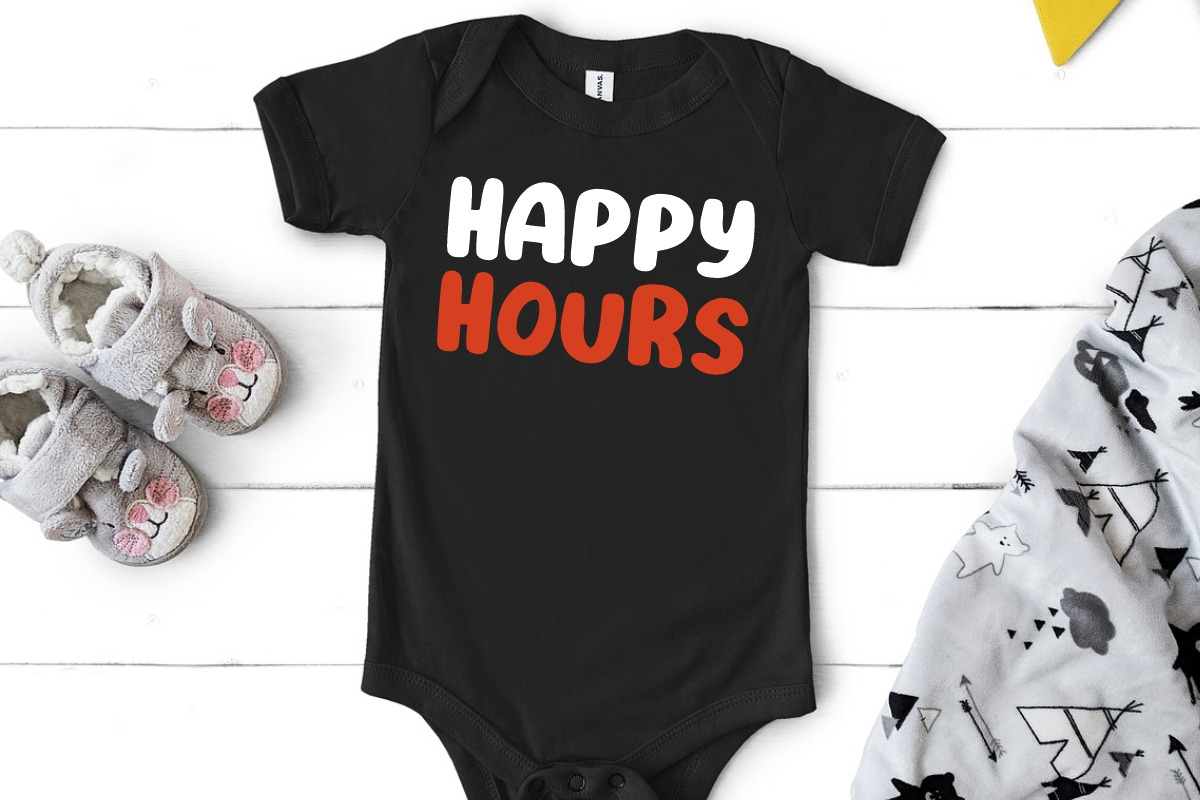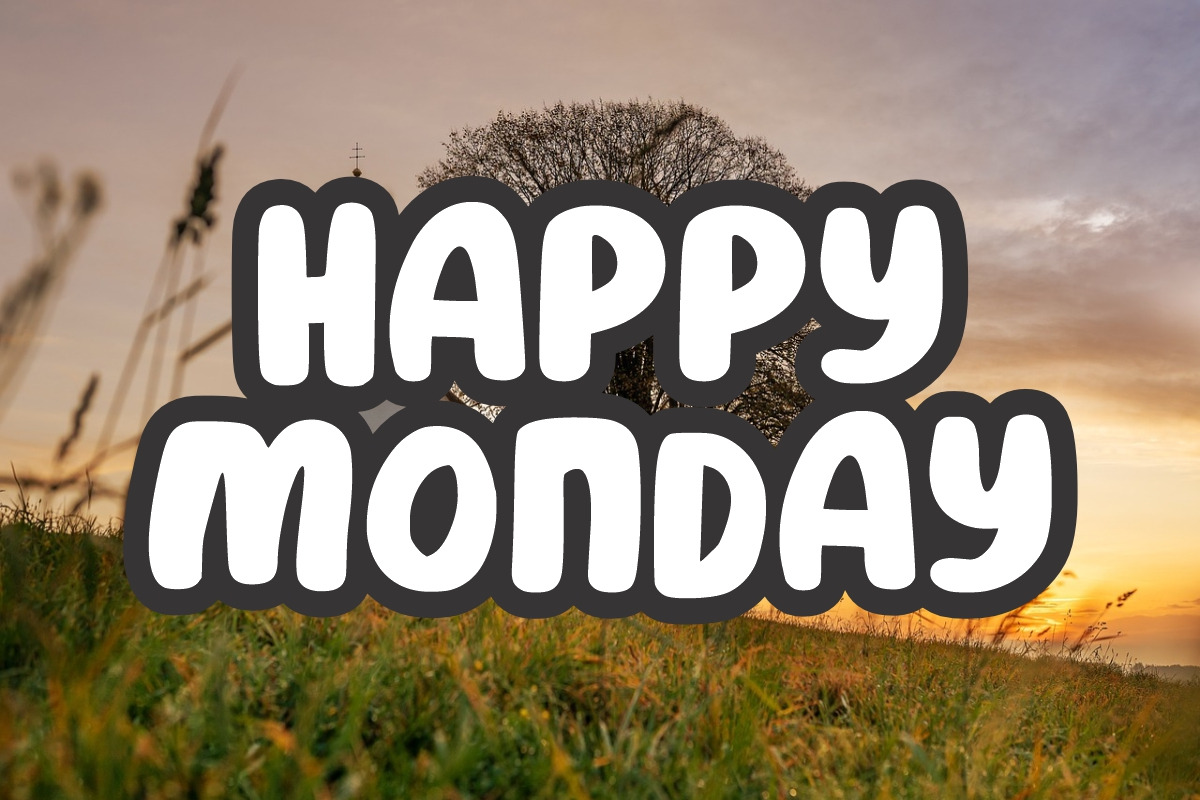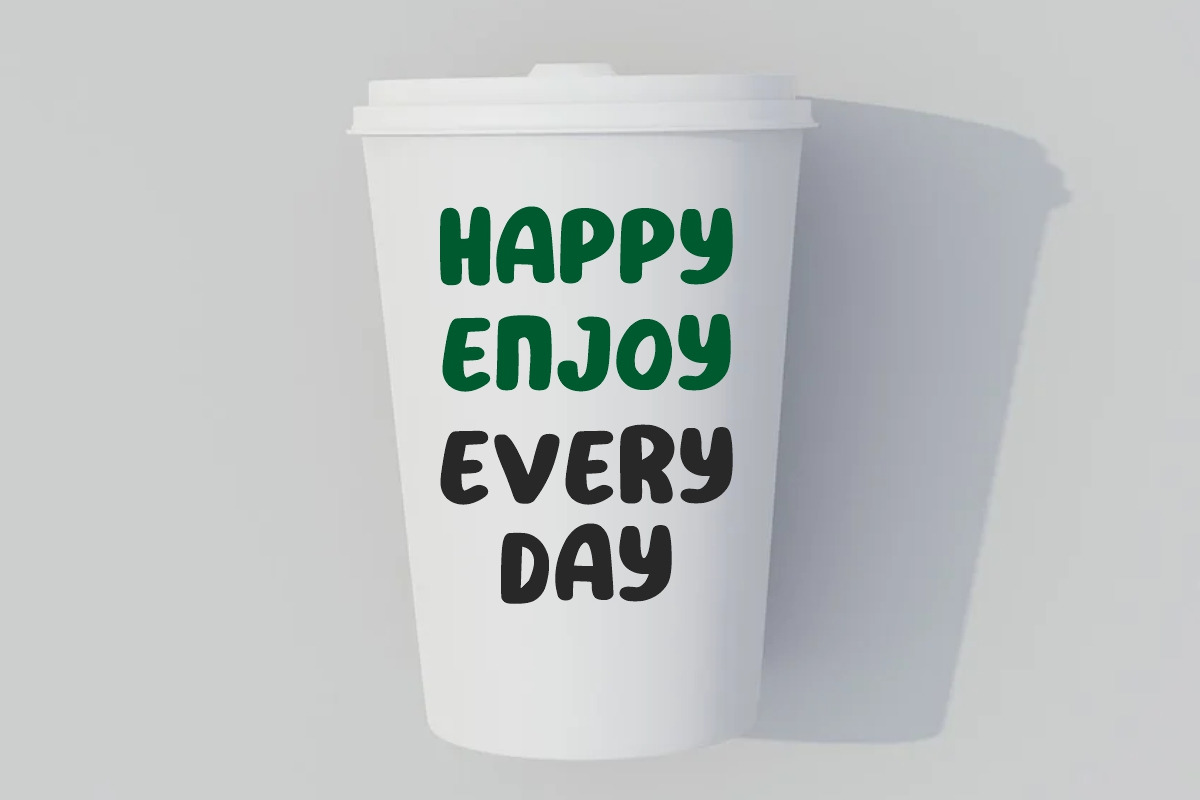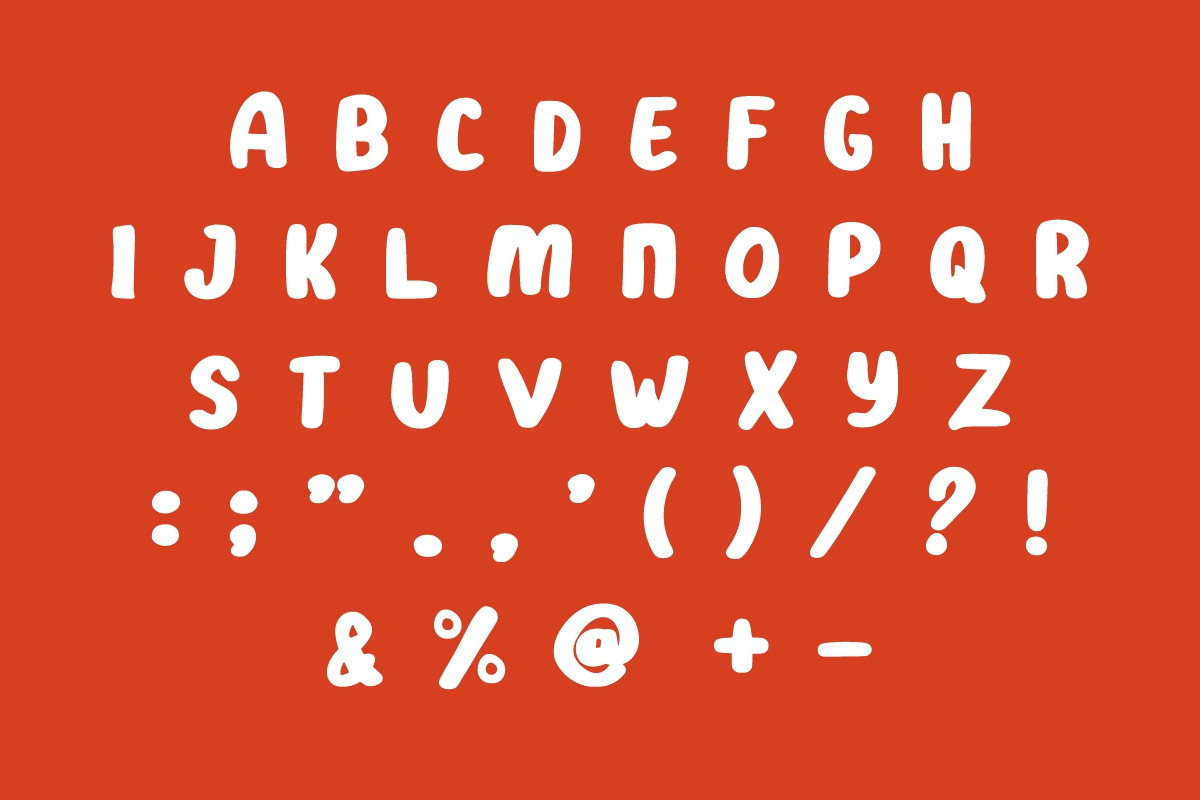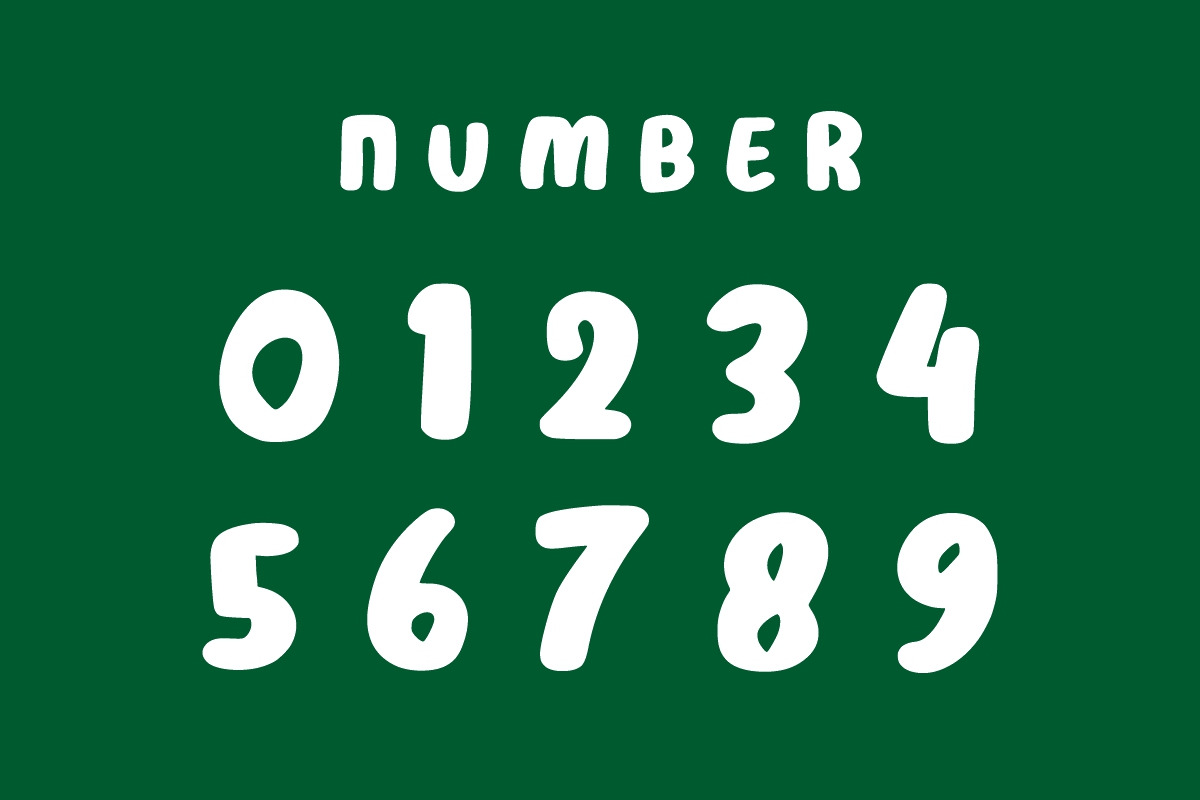
Love Easter
Love Easter is a fun and festive bold display font. It is suitable for any winter and holiday branding, product packaging, invitation, quote, t-shirt, label, poster, or logo.